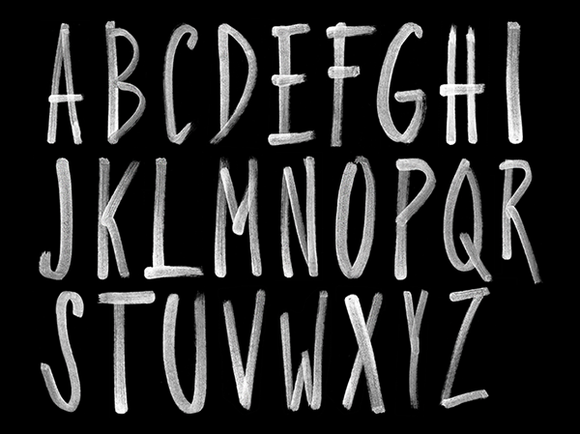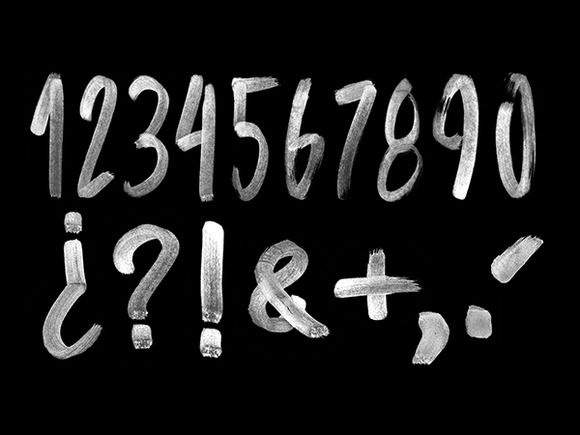
Introducing Bruship Font: The Perfect Hand-Drawn Brush Font for Creative Projects
Are you a designer, crafter, or DIY enthusiast looking for a unique and creative font to add a personal touch to your projects? Look no further than Bruship Font, a beautifully hand-drawn brush font that’s perfect for creating stunning headlines and titles. In this article, we’ll take a closer look at Bruship Font, its features, and how you can use it to elevate your designs.
What is Bruship Font?
Bruship Font is a hand-drawn brush font that’s designed to give your text a personal and artistic touch. With its unique, hand-painted feel, Bruship Font is perfect for creating eye-catching headlines, titles, and quotes that will make your designs stand out. The font contains basic glyphs, making it easy to use and versatile for a variety of projects.
Key Features of Bruship Font
- Hand-drawn brush font: Bruship Font is carefully crafted by hand, giving it a unique and organic feel that’s perfect for creative projects.
- Basic glyphs: The font contains basic glyphs, making it easy to use and versatile for a variety of projects.
- Perfect for headlines: Bruship Font is designed specifically for creating stunning headlines and titles that will grab attention.
How to Use Bruship Font in Your Designs
Bruship Font is perfect for a variety of design projects, including:
- Graphic design: Use Bruship Font to create stunning posters, flyers, and brochures that will grab attention.
- Digital design: Add a personal touch to your website, social media, or email marketing campaigns with Bruship Font.
- Crafting and DIY: Use Bruship Font to create beautiful handmade cards, invitations, and other paper crafts.
Tips and Tricks for Using Bruship Font
Here are some tips and tricks for getting the most out of Bruship Font:
- Experiment with colors: Bruship Font looks great in a variety of colors, so don’t be afraid to experiment and find the perfect hue for your design.
- Mix and match: Combine Bruship Font with other fonts or graphics to create a unique and eye-catching design.
- Pay attention to spacing: Make sure to adjust the spacing between letters and words to create a clean and easy-to-read design.
| Font Name | Bruship Font |
| Author | Juan Pablo Bello Fernández |